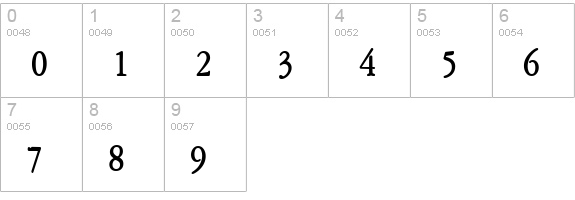
Amery Thin Bold is a delicate, low-contrast variant in the Amery typeface family \xE2\x80\x94 well suited to fashion editorial, minimal branding, and high-contrast display.